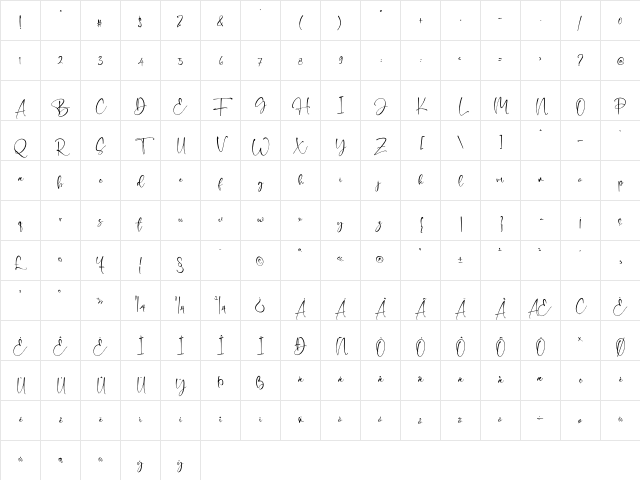
Ramly Zatins Regular Free Font
Ramly Zatins Regular
Designer: Virgiawan Listanto
Design Context for Ramly Zatins
Ramly Zatins is a composed and adaptable typeface that performs quietly and consistently across a wide range of design contexts.